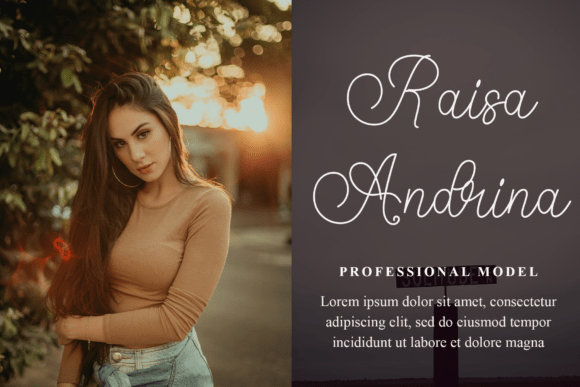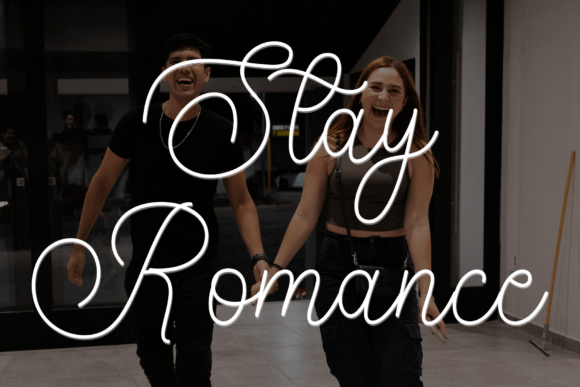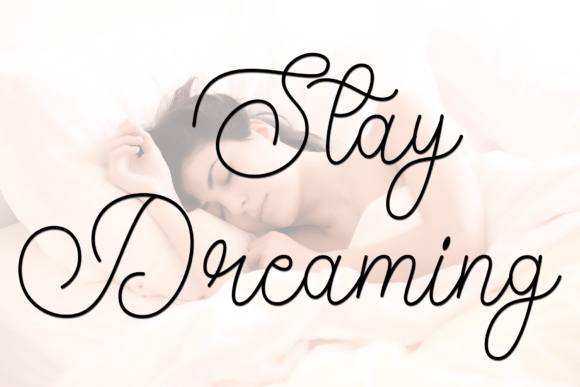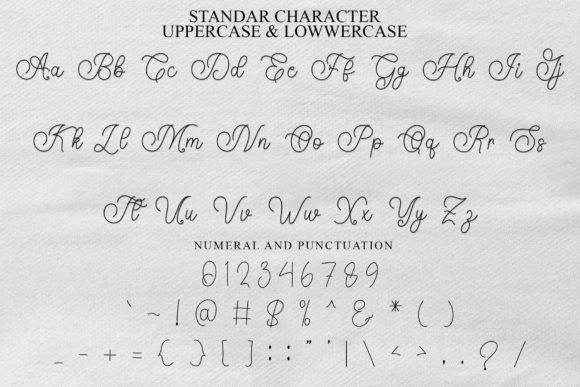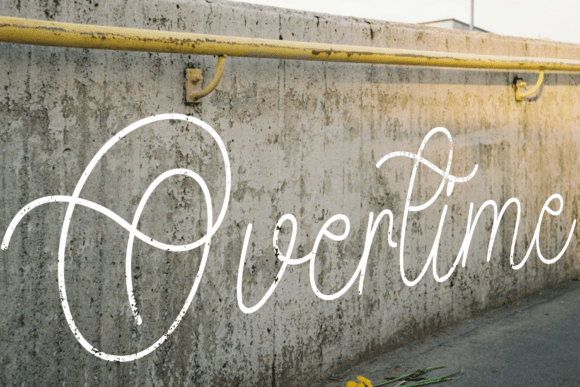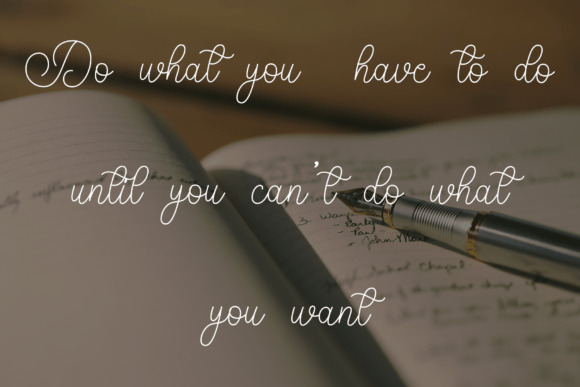
Introduction to Lovely Dreaming Font
Lovely Dreaming is a festive and merry typeface that captures the spirit of the holiday season.
Key Features of Lovely Dreaming Font
Why Choose Lovely Dreaming Font?